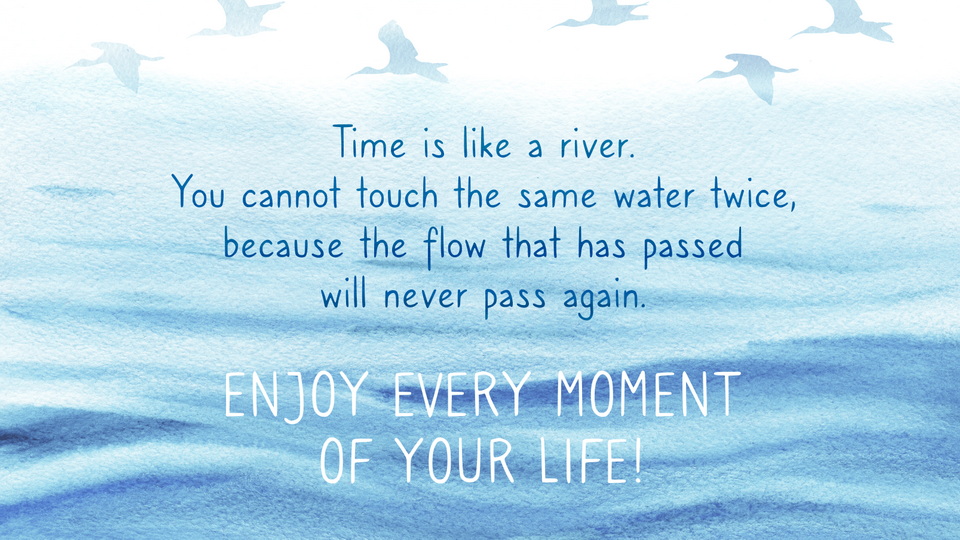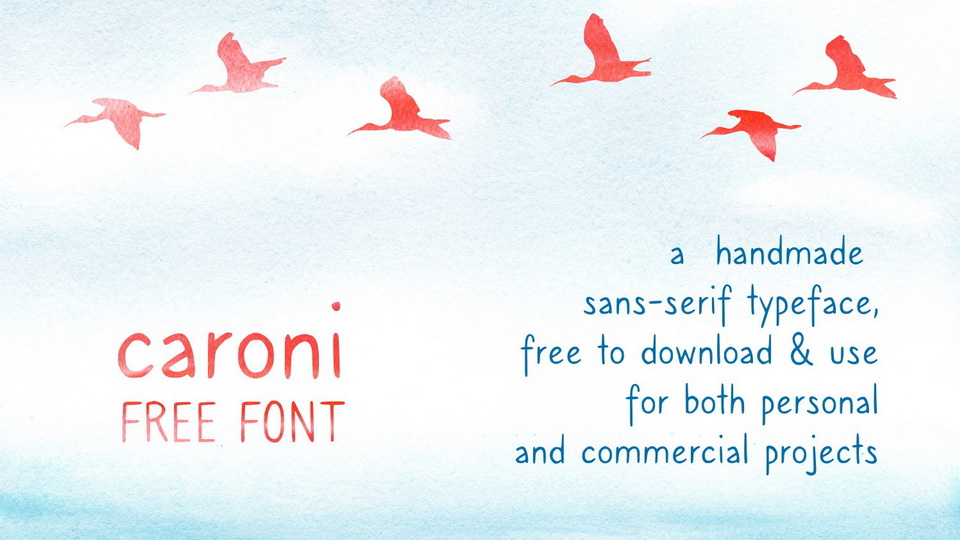
Caroni Font
Caroni is a handmade, yet clean and easy to read font that was created for longer, continuous texts. It’ll give your projects that special, handmade touch.
Caroni is also the name of a swamp and bird sanctuary on the Caribbean island of Trinidad, with really cool mangrove trees and beautiful scarlet red birds.